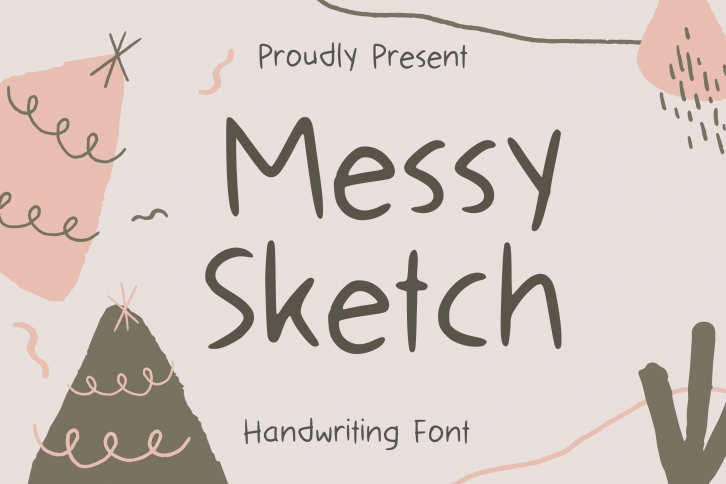
Messy Sketch is a beautiful font that was designed by Aisyah. It's a great choice for designers and creatives who need such a font. It was released on June 21, 2021 and the file size is 21.22 MB. Messy Sketch may give a more youthful, expressive and casual look to your project. It is a very beautiful, refined, elegant, and high-quality font.